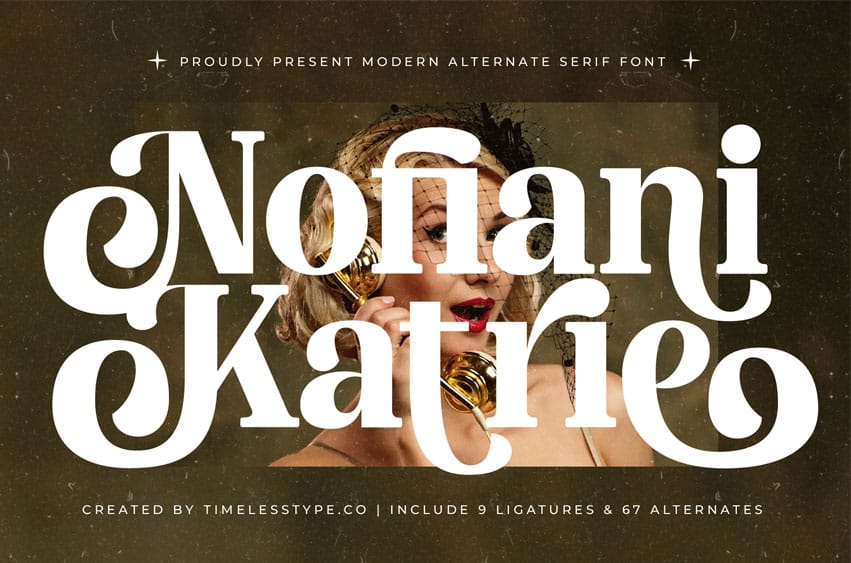
Nofiani Katrie Font is a modern alternate serif font with bold curves, dramatic swashes, and expressive letterforms inspired by classic editorial elegance. Designed for standout branding, luxury packaging, vintage-modern titles, and sophisticated logo concepts, this typeface brings a strong personality with a touch of retro charm.
Featuring 9 elegant ligatures and 67 stylistic alternates, Nofiani Katrie gives designers full creative flexibility to craft unique headlines, stylish typography compositions, wedding invitations, branding, and high-end visual identities. Its combination of thick strokes, smooth loops, and artistic serif details makes it an ideal choice for projects that demand both refinement and character.